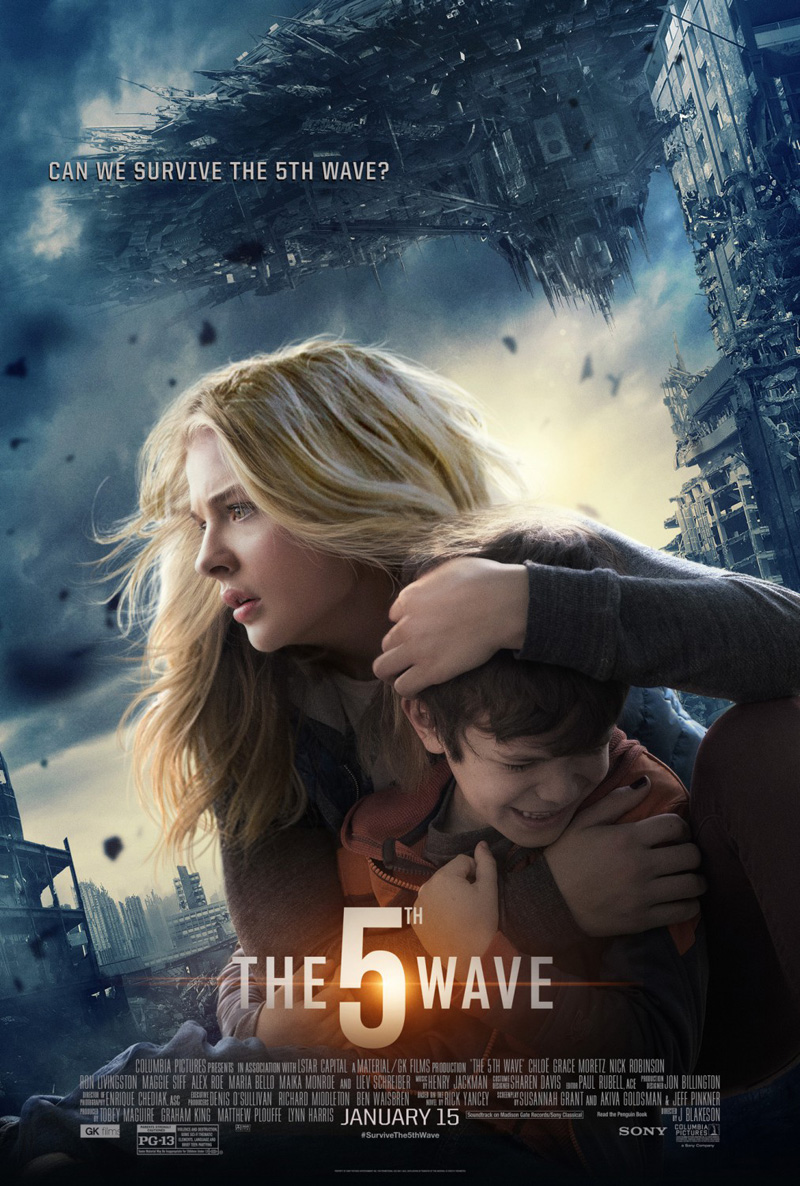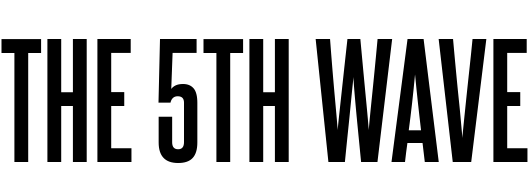
The 5th Wave Font
ActionThe 5th Wave is a science fiction film based on the novel by Rick Yancey, depicting an alien invasion that occurs in waves, and follows a young girl's journey to find and rescue her brother amidst the chaos.
In the poster, the film's title is displayed in a font similar to Agency FB Bold, with the exception of the letter "5." However, the book title by Rick Yancey, "The 5th Wave," uses the Steelfish Bold font designed by Ray Larabie.